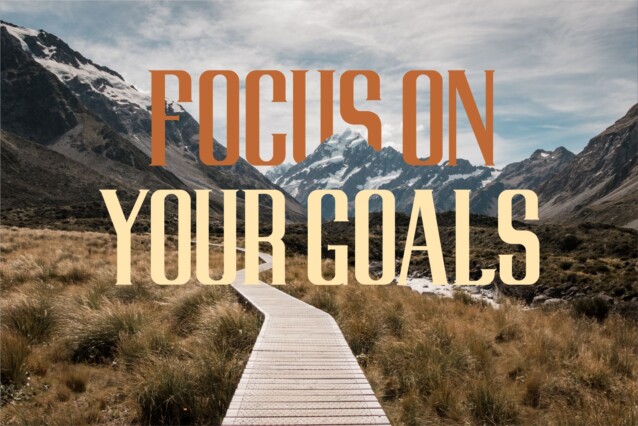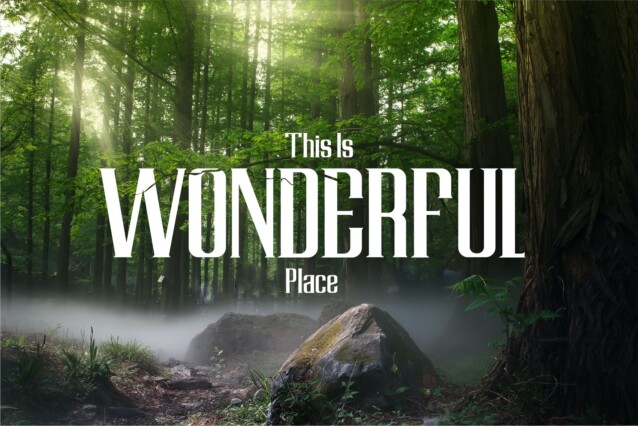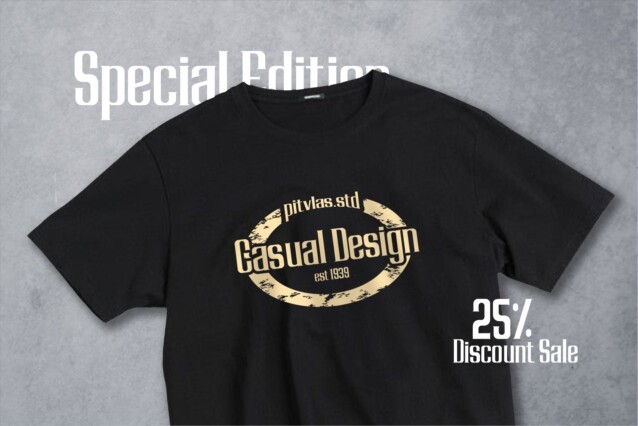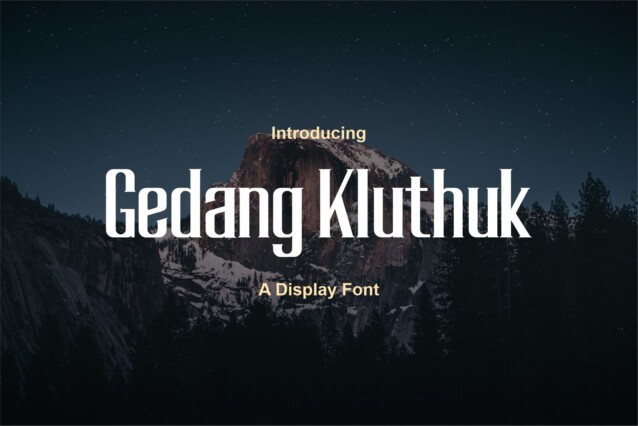
Gedang Font
Gedang Font is a elegant and warm serif typeface with a nuance classic. This typeface was intended to improve upon the legibility. With a strong character, this font will make your designs look perfect. Perfect for adventure poster designs, t-shirt designs, and matches well with natural backgrounds.